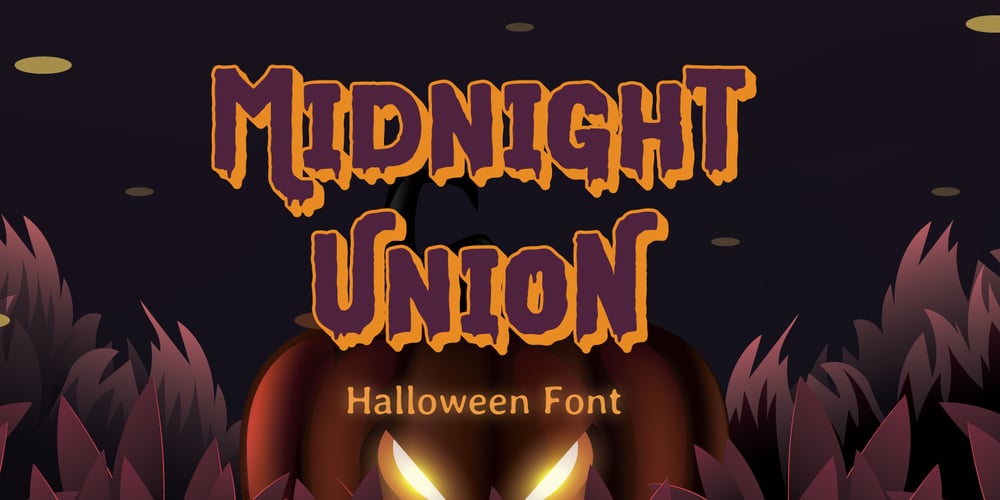
Midnight Union Font Family was designed by Fadli Ramadhan Iskandar and published by Attype Studio. Midnight Union contains 1 styles and family package options. Midnight Union is a delicate and incredibly distinct Halloween layered display Font.Combine it with Midnight Union – Extrude to make an amazing 3D effect on your letter! Midnight Union perfect for halloween promotion, branding, logo, invitation, stationery, social media post, product packaging, merchandise, blog design, game titles, cute style design, Book/Cover Title and more.What’s Included :- Multilingual Support – Made it into separated file to make it easier to use by beginner & separated file user can use the font with software which doesn’t accept open type features.—Hope you enjoy with our font!Attype Studio